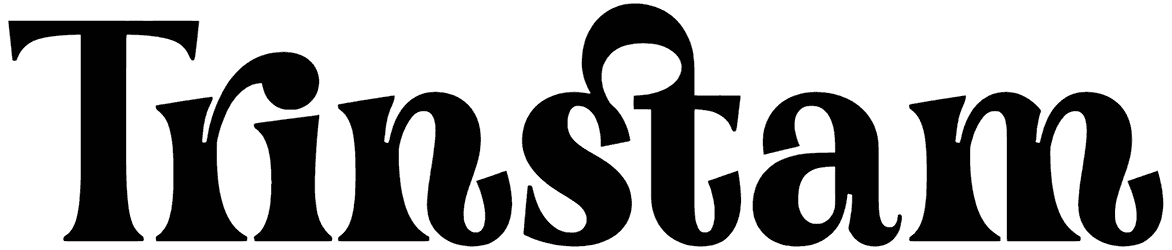
Trinstam Font
Interesting connections in Trinstam help you immerse yourself in the design space and create designs with a cartoon theme. Even if you don’t have any creative ideas, this groovy font will give you the inspiration you need and will be very attractive on posters, advertisements, packaging, and books.
This versatile fancy font is an excellent choice for designers who want to make the most impact with the least effort and create a sense of joy in their designs.